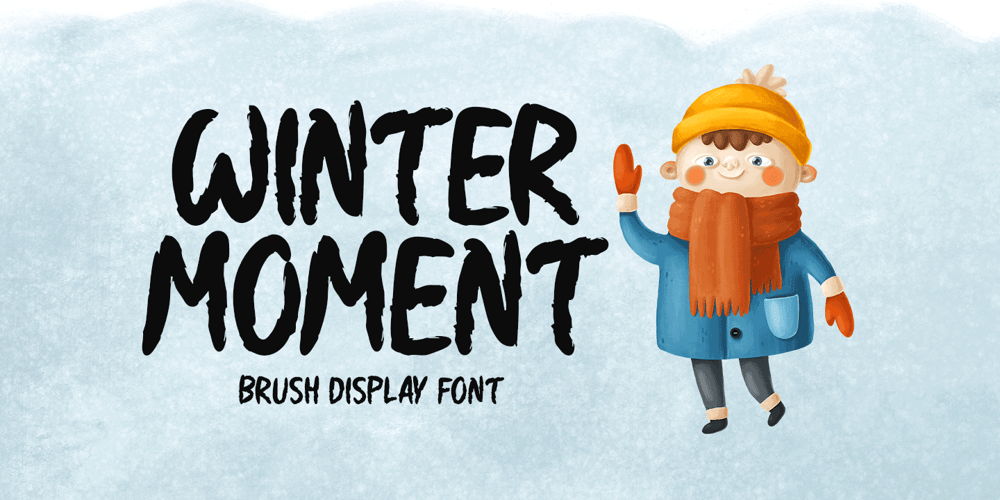
Winter Moment
Winter Moment font
Winter Moment Font Family was designed by Md Shohail Bhuian and published by Seemly Fonts. Winter Moment contains 1 styles and family package options. New brushed display font called Winter Moment. Stationery, logos, t-shirts, paper, print designs, website headers, picture frames, flyers, album covers, posters, image sliders, and a lot more are all excellent places to include mindfulness.